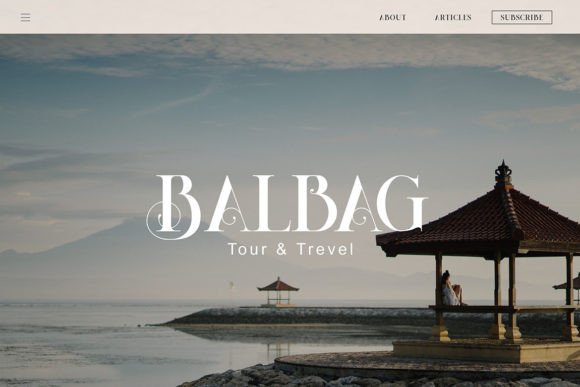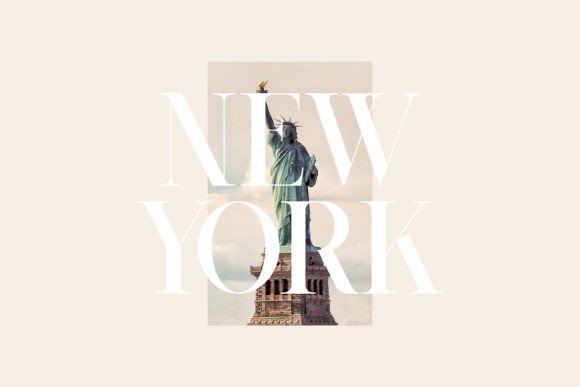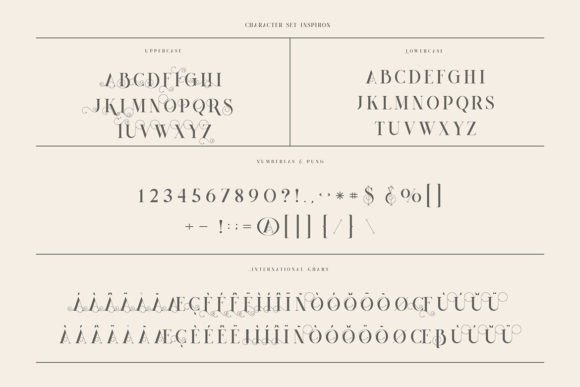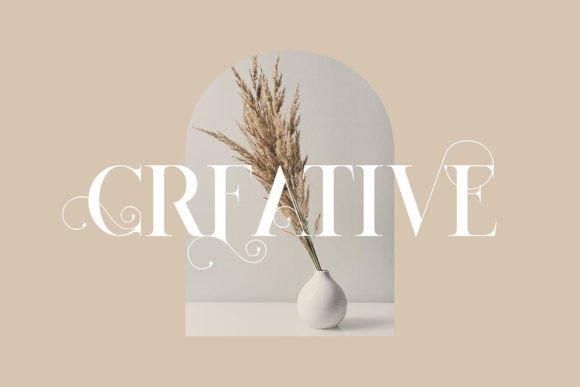
Introduction to Inspiron Font
Do you remember that moment when you stumbled upon the perfect font for your creative project? The one that elevates your design from good to great, and makes you feel like you’ve hit the jackpot? For designers, that moment is pure magic. And if you’re looking for a font that can deliver that magic, you’re in luck – we’re about to introduce you to the stunning Inspiron Font.
As a design resource, Inspiron Font is a game-changer. Its elegant serif design and perfectly balanced curves make it a timeless classic, perfect for adding a touch of understated elegance to any project. Whether you’re working on a logo, brochure, or website, Inspiron Font is sure to impress. And the best part? It’s available for free download, so you can get creative without breaking the bank.
With its high-quality design and transparent background, Inspiron Font is a versatile choice for any creative project. Whether you’re a seasoned pro or just starting out, this font is sure to become a trusted companion in your design journey. So why settle for anything less? Download Inspiron Font today and discover the magic of perfect typography.
Key Features of Inspiron Font
- High-quality design resource for creative projects, ideal for digital art, graphic design, and publishing.
- Unique, modern design with a transparent background, making it easy to layer over other elements in your creative project.
- Designed to be highly legible, even at small font sizes, making it perfect for body text, headings, and titles in your creative project.
Honest Review: Inspiron Font
As a designer, I’m always on the lookout for high-quality fonts to elevate my creative projects. Recently, I had the chance to try out the Inspiron Font and I must say, it’s a great addition to my design resource library.
What works well: ✨ The Inspiron Font has a unique and modern aesthetic that works perfectly for a variety of design projects, from corporate branding to digital graphics. The font is also available for free download, making it an excellent choice for designers on a budget.
Here are some of the key features I love about the Inspiron Font:
- High-quality vector graphics that render smoothly on various devices
- Transparent background option for seamless integration into designs
- Easy to customize with various font sizes and styles
However, there are a few limitations to consider: ⚠️ The Inspiron Font may not be suitable for projects that require a more traditional or classic font style. Additionally, the font may not be as widely supported across all platforms and devices.
Overall, I’m impressed with the Inspiron Font and would definitely recommend it to designers looking for a high-quality, modern font for their creative projects.
How to Use Inspiron Font
The Inspiron Font is a high-quality, free download design resource ideal for creative projects. It’s perfect for adding a touch of sophistication and elegance to your work.
Tips for Getting the Most Out of Inspiron Font
To get the most out of the Inspiron Font, use it in conjunction with a transparent background to create a clean and modern look. Experiment with different font sizes and styles to add visual interest to your design.
The Inspiron Font is perfect for a variety of design projects, including:
- Social media graphics and advertisements